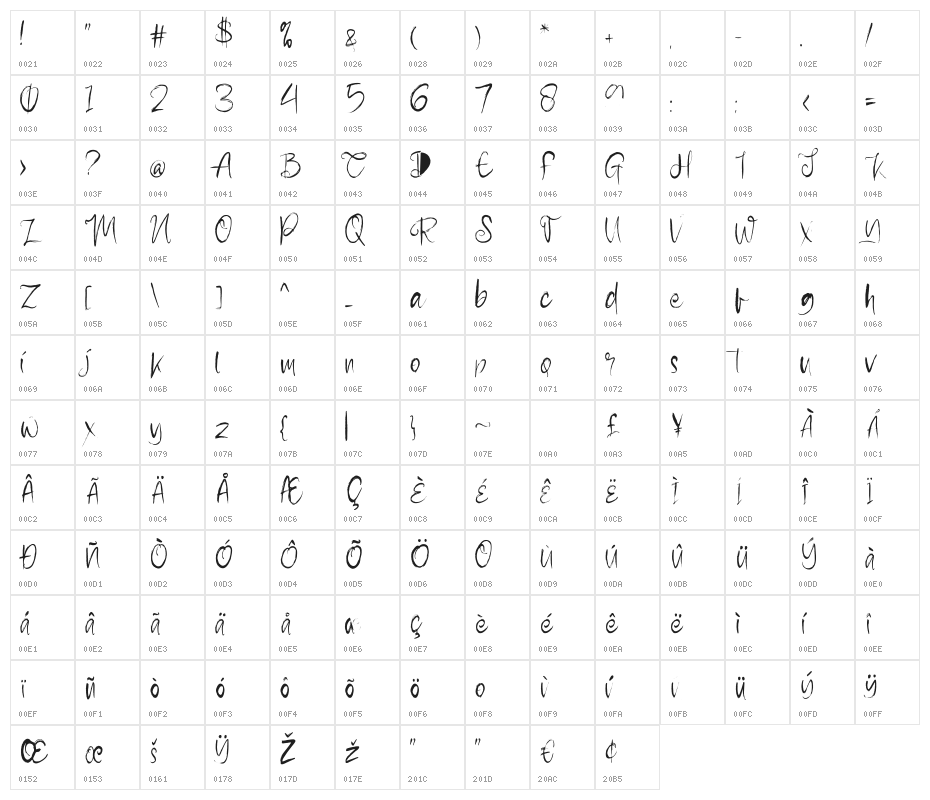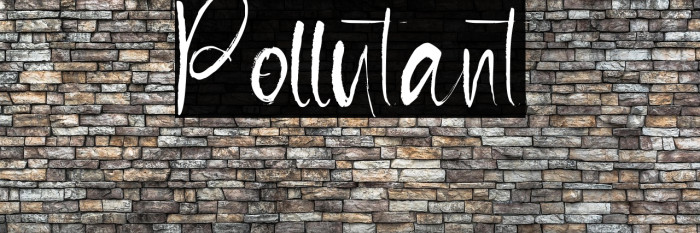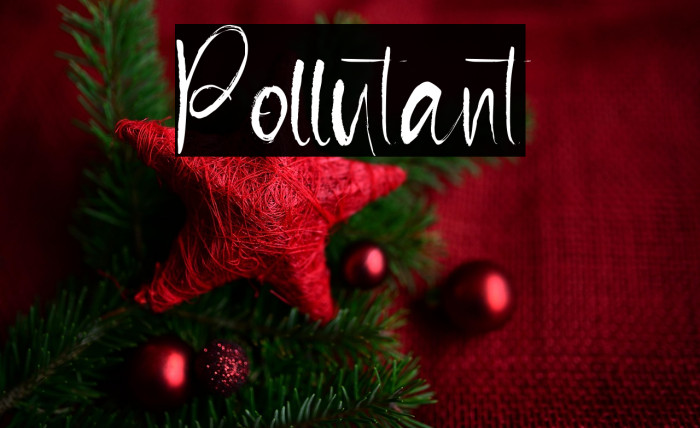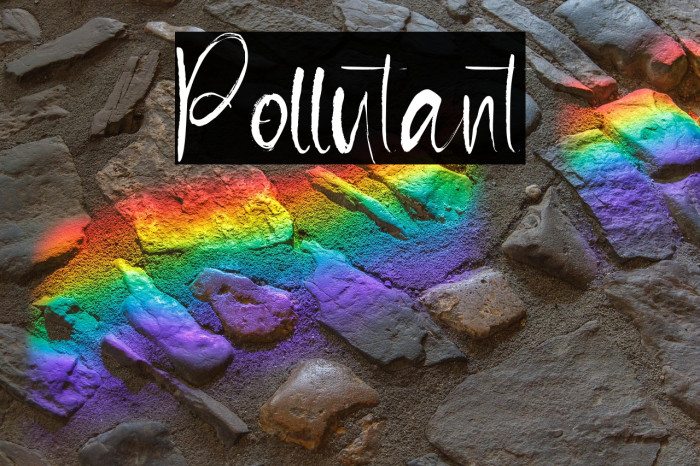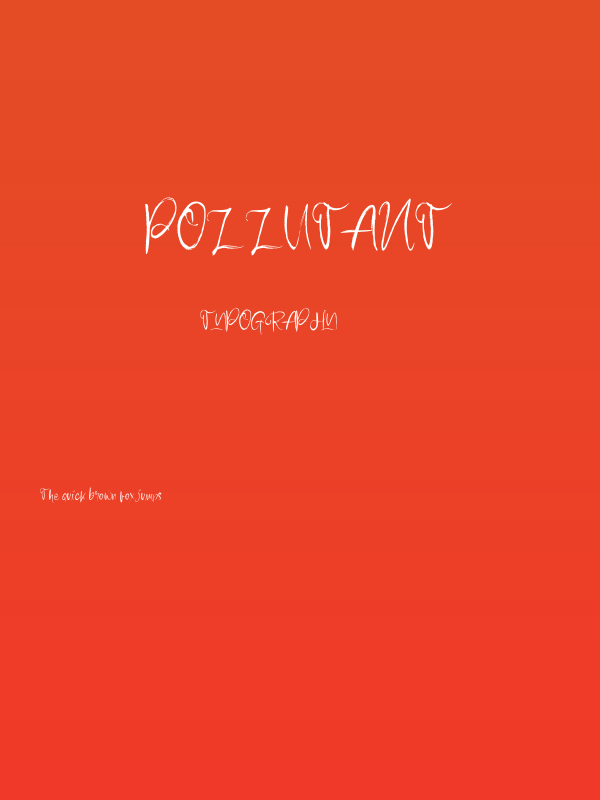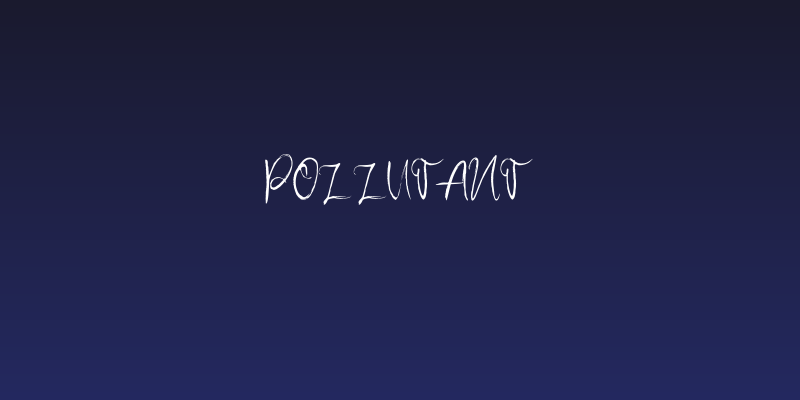
Pollutant Font
Pollutant Description
This font exhibits a dynamic and expressive style, characterized by its brush-like strokes and fluid motion. The uppercase letters are bold and sweeping, with a sense of movement that suggests a hand-drawn quality. The lowercase letters maintain this fluidity, offering a more casual and artistic feel. Numbers and special characters follow the same expressive style, making them stand out with their unique flair. The overall appearance is both modern and artistic, suitable for creative projects that require a personal touch.
| Overall Style | Modern, Artistic |
| Use Case | Logos, Headlines, Posters |
| Proposed Projects | Ideal for artistic projects, branding, posters, and invitations where a personal and creative touch is desired. |